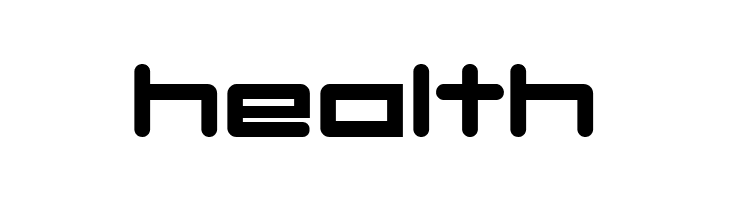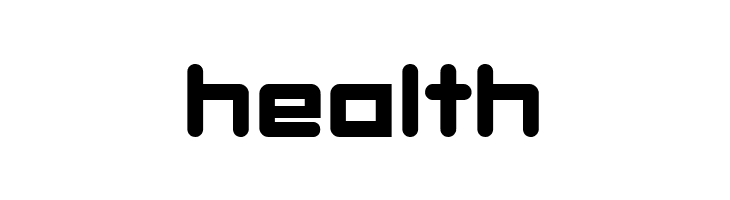
DBXLNightfever UltraWide Font
A bold, ultra-wide font with a futuristic, geometric design.
DBXLNightfever ExtraWide Font
A bold, extra-wide geometric font with rounded edges and a modern aesthetic.
DBXLNightfever Wide Font
DBXLNightfever Italic Font
DBXLNightfever ExtraWideItalic Font
A bold, extra-wide italic font with a modern and dynamic style.
DBXLNightfever Normal Font
A bold, geometric font with rounded edges and a modern, playful style.
DBXLNightfever WideItalic Font
A bold, wide, and italicized font with rounded edges and a modern style.
DBXLNightfever UltraWideItalic Font
A futuristic, ultra-wide italic font with rounded edges and dynamic style.